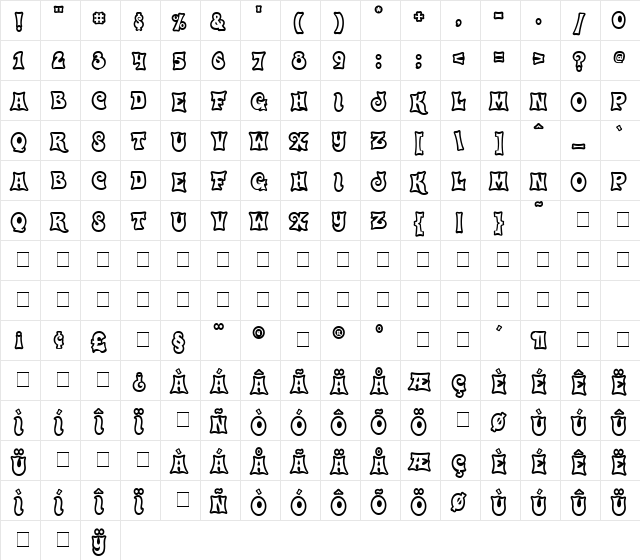
Haulnhouse Outline
Design Context for Haulnhouse Typeface
Haulnhouse brings ornamental detail and strong personality to headlines and identities, where visual impact matters more than quiet functionality.
Font Pairing: Pair with a clean neutral sans-serif for body copy to let Haulnhouse's character lead without overwhelming the composition.
Pro Tip: Treat Haulnhouse as the centrepiece of your typographic hierarchy. One strong heading set in a decorative face can carry an entire layout.